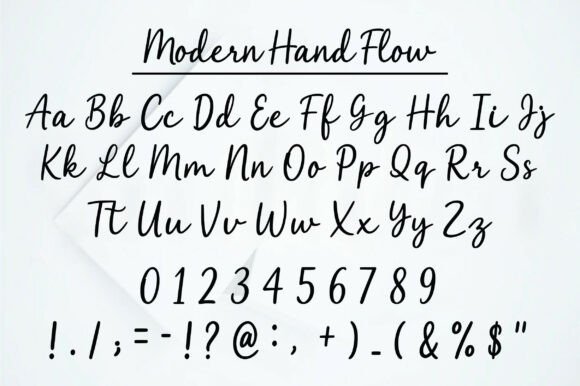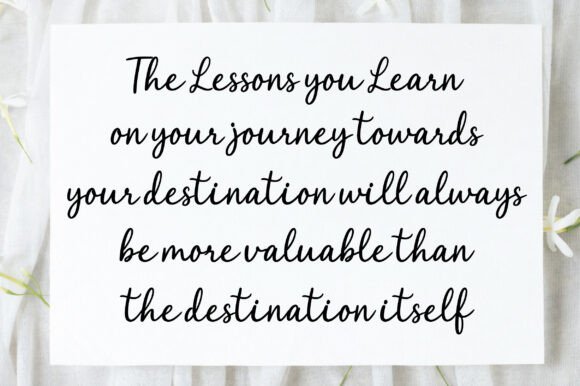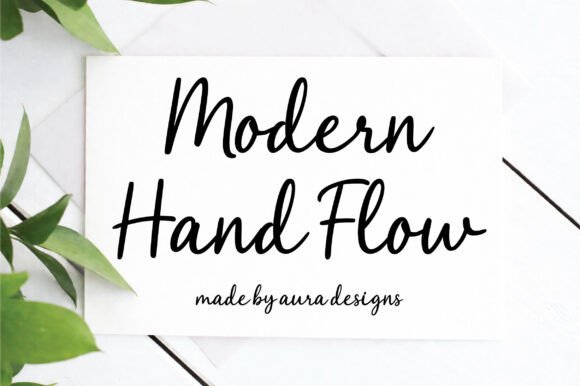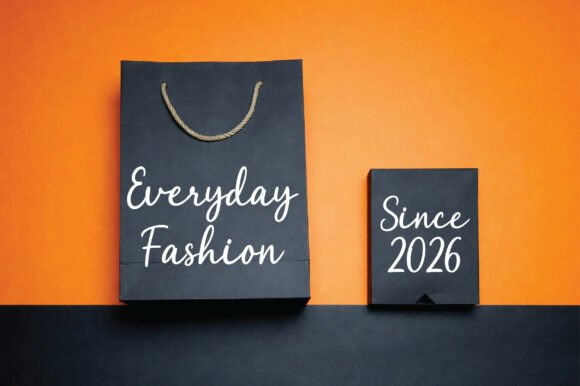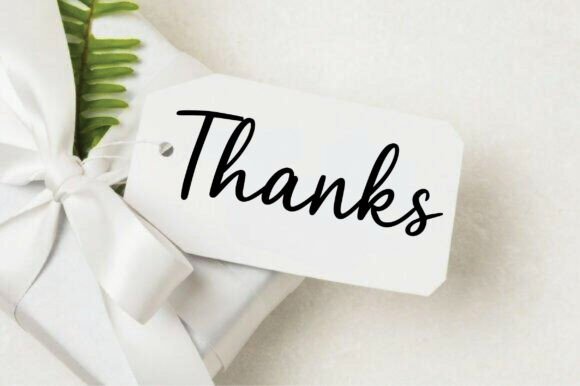
Introduction to Modern Hand Flow Font
Do you remember the first time you saw a handwritten note that made you feel like you were the only person who received it? Maybe it was a love letter from a friend, a heartfelt thank-you note from a family member, or a personal message from a loved one. Whatever it was, it’s the authentic touch that made it stand out. That’s what Modern Hand Flow Font is all about – capturing the natural rhythm of everyday writing while maintaining a clean and modern appearance.
As a designer, you’re constantly looking for that special something to elevate your creative project. Modern Hand Flow Font is a valuable resource that can add a personal touch to your designs without sacrificing clarity. Its flowing strokes, balanced letterforms, and medium-weight strokes make it highly readable and versatile for a wide range of applications.
Key Features of Modern Hand Flow Font
- Unique Handwritten Style: Modern Hand Flow Font offers a distinctive, handwritten aesthetic perfect for creative projects requiring a personal touch.
- High-Quality Design Resource: This font is designed to be a valuable addition to any design library, offering a high level of detail and sophistication.
- Perfect for Creative Projects: Modern Hand Flow Font is ideal for use in creative projects such as wedding invitations, menus, and other design elements where a unique, handwritten style is required.
Honest Review: Modern Hand Flow Font
I recently had the opportunity to work with the Modern Hand Flow Font, and I’m excited to share my thoughts on this design resource.
What works well: ✨ The Modern Hand Flow Font is a high-quality, hand-drawn font that adds a unique touch to any creative project. The font is available for free download, which is a major plus for designers on a budget. The transparent background makes it easy to overlay on top of images or other design elements.
What I liked most about the Modern Hand Flow Font is its versatility. It can be used for a variety of projects, from invitations and posters to digital products and social media graphics.
Limitations: ⚠️ While the Modern Hand Flow Font is a great resource, it may not be suitable for projects that require a more formal or corporate tone. Additionally, the font may not be as readable in smaller sizes, which could be a limitation for certain design applications.
Overall impression: I’m really impressed with the Modern Hand Flow Font, and I think it’s a great addition to any designer’s toolkit. While it may have some limitations, it’s a high-quality resource that’s perfect for creative projects.
- High-quality, hand-drawn font